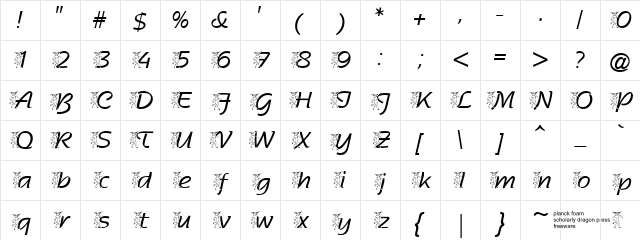
pf_From the desk of Hasan Regular
Design Context for pf_From the desk of Hasan
pf_From the desk of Hasan is a composed and adaptable typeface that performs quietly and consistently across a wide range of design contexts.